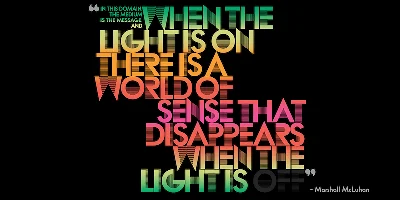
Lincoln Electric Font
Lincoln Electric Font is ideal for industrial branding, manufacturing companies, construction firms, electrical contractors, automotive services, heavy machinery branding, technical manuals, and professional trade publications that require robust, dependable typography with strong industrial character and authoritative presence.
What makes Lincoln Electric Font exciting is its powerful combination of industrial strength and professional reliability. This commanding typeface features bold, sturdy letterforms that convey durability and trustworthiness, making it perfect for brands in manufacturing, construction, and industrial sectors that need to communicate expertise and dependability.
The Lincoln Electric Font family includes regular, bold, and heavy weights, along with condensed variations for versatile applications. Each style maintains the font's characteristic industrial aesthetic while providing designers with comprehensive options for creating professional layouts and establishing strong visual hierarchies in technical communications.
Industrial designers and corporate brands consistently select Lincoln Electric Font for projects requiring authoritative presence and professional credibility. This robust typeface effectively communicates strength and reliability, ensuring brand messages resonate with industrial audiences and establish trust in competitive markets.
The font's solid construction and masculine characteristics make it particularly effective for B2B communications and industrial marketing. Lincoln Electric Font represents the perfect solution for companies seeking to establish a strong, professional brand image that communicates expertise, durability, and industrial excellence across all business communications and marketing materials.